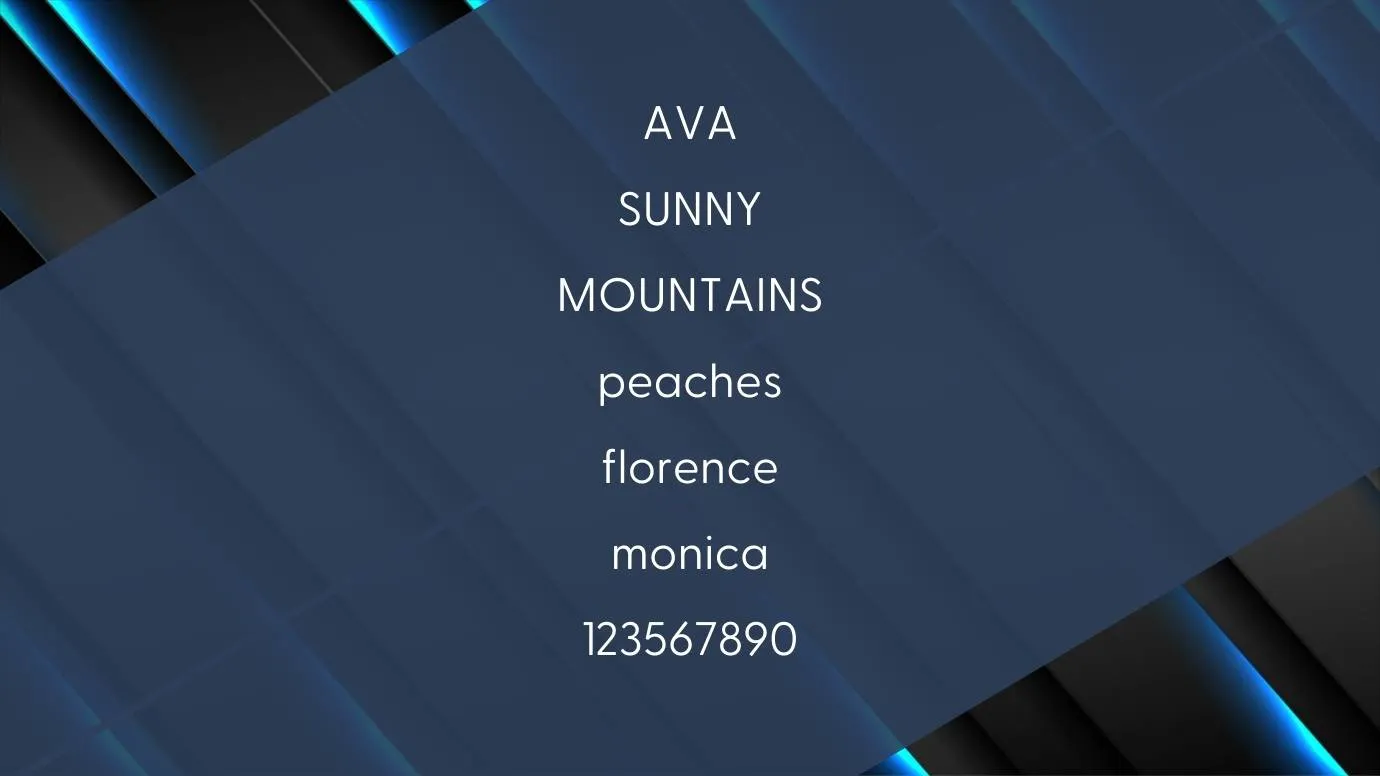
Greycliff Font is a sans-serif typeface designed by an American typeface designer. The design was inspired by classic grotesques, and the family includes eight weights plus italics. The family includes eight weights plus italics, so you can find the perfect match for your project.
Greycliff typeface is a great choice for any project that requires a clean and modern sans-serif typeface. The design was inspired by classic grotesques, so it has a timeless look that will never go out of style.
Greycliff Font has a complete set of characters including upper and lower case alphabets, numbers, and special characters, and also all the standard Latin, Cyrillic, and Greekphabet glyphs. The typeface also includes support for Arabic, Hebrew, and other languages that use the Latin alphabet. This typeface is similar to the muller font.
This simple and astonishing typeface is designed by an American typeface designer Connary Fagen in 2016. He is a famous typeface designer.
This font style is created with an exclusive and regular style. This single attractive style is a combination of characteristics, including capital alphabets, small alphabets, punctuations, glyphs, numbers, symbols, special characters, and a large number of language support.
It can support up to 86 languages.
Interglossa (Glosa), Interlingua, English, Greek, Greenlandic, Guarani, Haitian Creole, Hausa, Irish (Gaelic), Finnish, French, Frisian, Friuli, Galician, Genoese, German, Moldovan, Nahuatl, Nenets, Norfolk/Pitcairnese, Istro-Romanian, Italian, Jèrriais, Kabardian, Hawaiian, Hiligaynon, Hill Mari, Kashubian, Kazakh (Cyrillic), Khakas, Khalkha, Khanty, Kildin Sami, Komi-Permyak, Kurdish, Kurdish (Kurmanji), Macedonian, Malagasy, Norwegian, Occitan, Oromo, Ossetian, Pangasinan, Hmong, Hopi, Hungarian, Ibanag, Icelandic, Iloko (Ilokano), Indonesian, Kalmyk (Cyrillic), Karachay (Cyrillic), Papiamento, Piedmontese, Quechua, Rhaeto-Romance, Romanian, Russian, Slovenian (Slovene), Somali, Southern Ndebele, Southern Sotho (Sesotho), Spanish, Swahili, Swati/Swazi, Swedish, Tagalog (Filipino/Pilipino), Tahitian, Tajik, Tswana, Turkmen, Turkmen (Cyrillic), Ukrainian, Uzbek (Cyrillic), Veps, Vietnamese, Votic (Latinized), Walloon, Warlpiri.
Is Greycliff typeface the same as Helvetica?
No, Greycliff Font is not the same as Helvetica. Both are the sans-serif typefaces but their styles are different